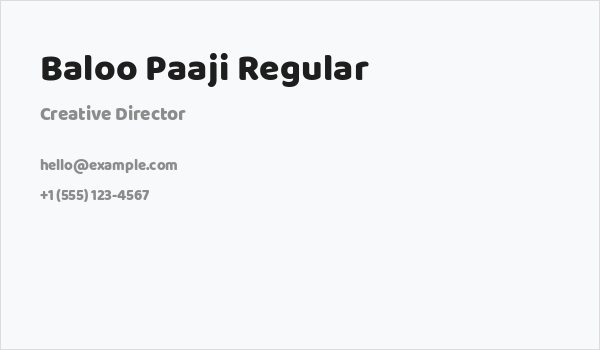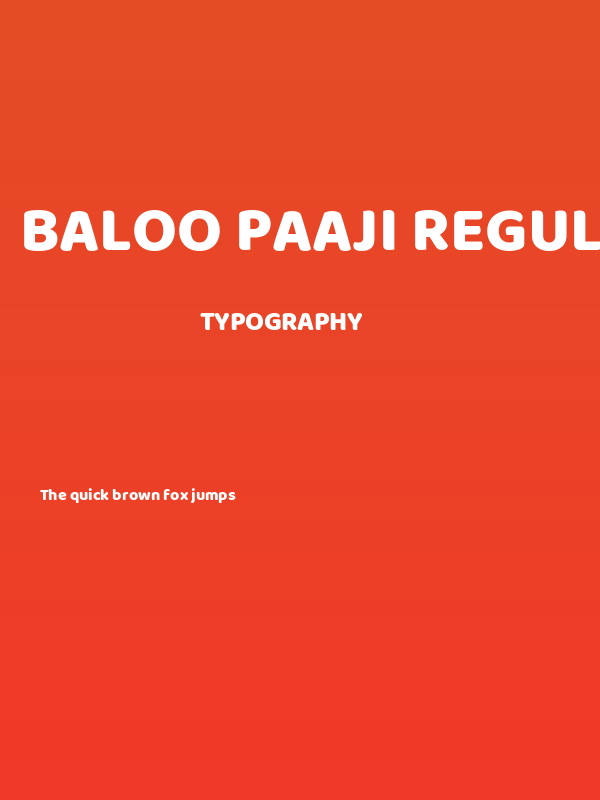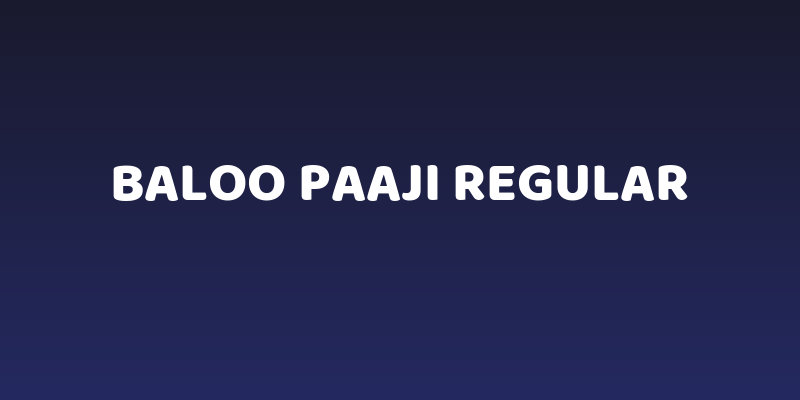
Baloo Paaji Regular Font
Baloo Paaji Regular Description
This font features a playful and rounded design, characterized by its bold and friendly appearance. The letters are thick and have a uniform stroke width, giving it a modern and approachable look. The rounded edges and smooth curves contribute to its inviting style, making it suitable for a variety of creative projects. The font maintains a consistent weight throughout, ensuring readability and a cohesive visual flow. Its design is both contemporary and versatile, ideal for capturing attention while maintaining clarity.
| Proposed Projects | Ideal for children's books, playful branding, social media graphics, and casual invitations. |